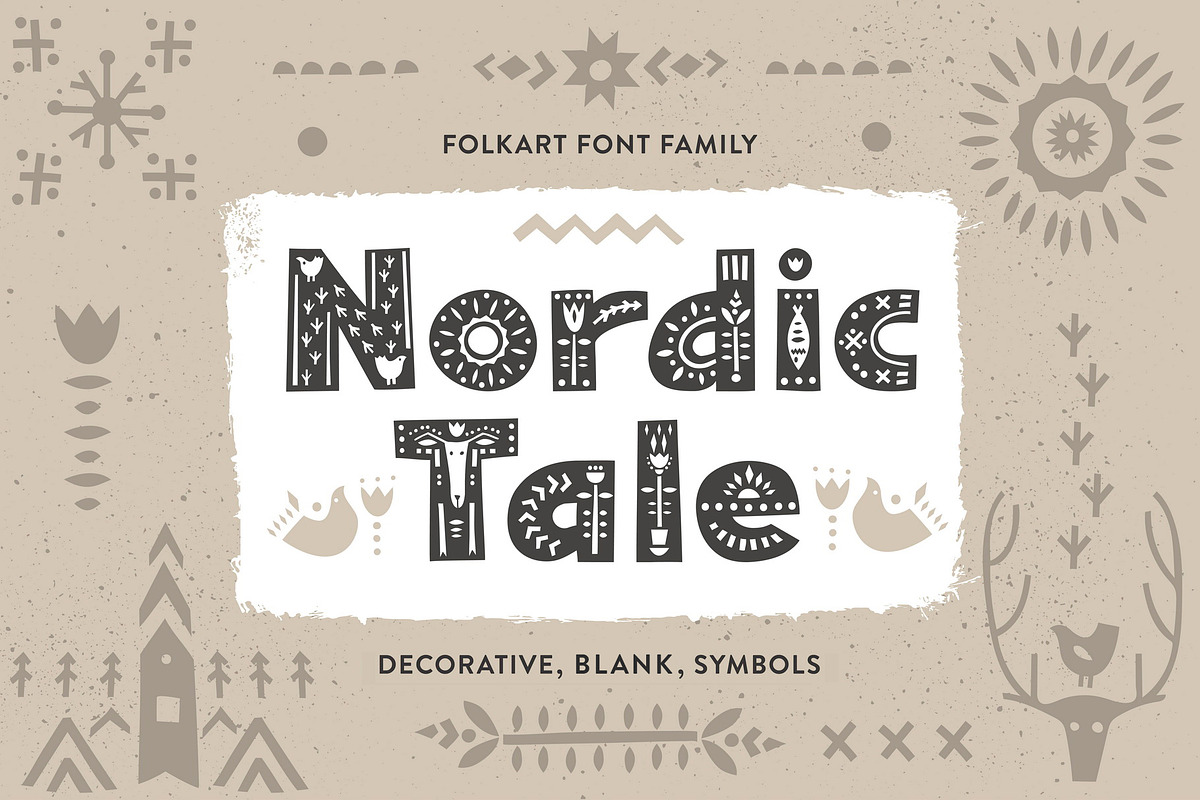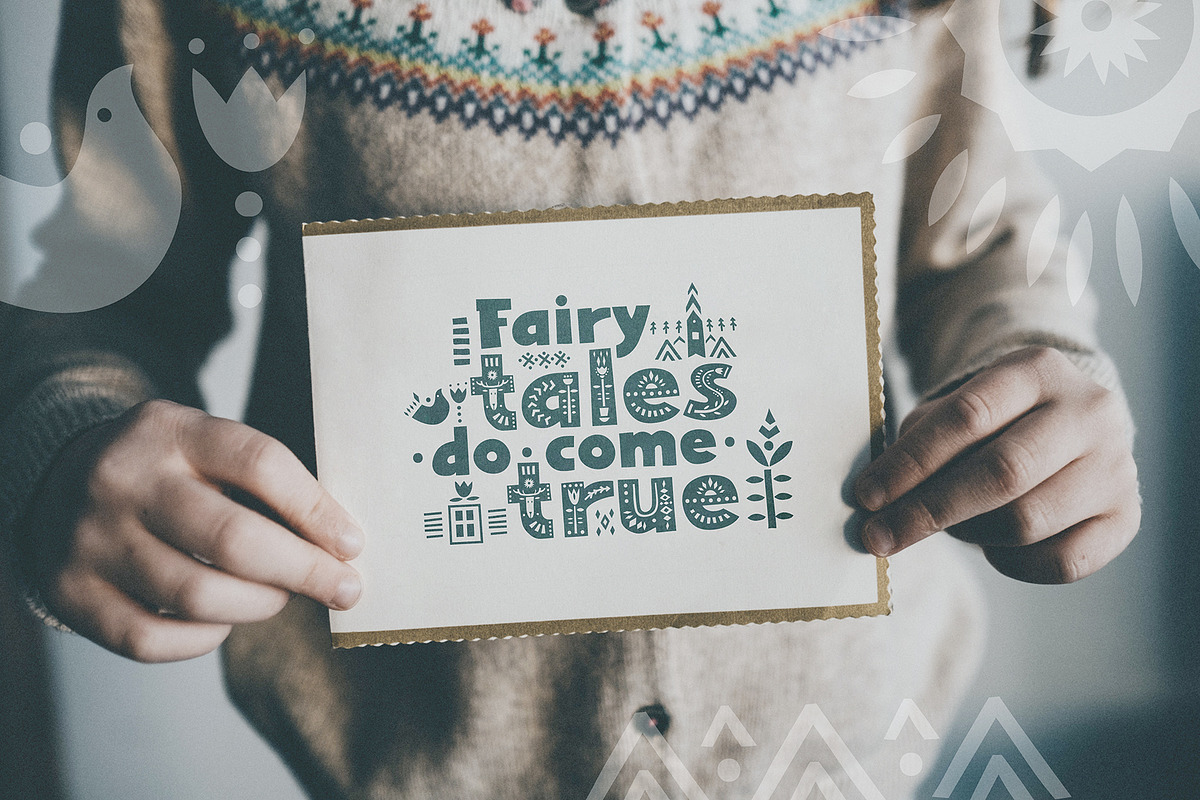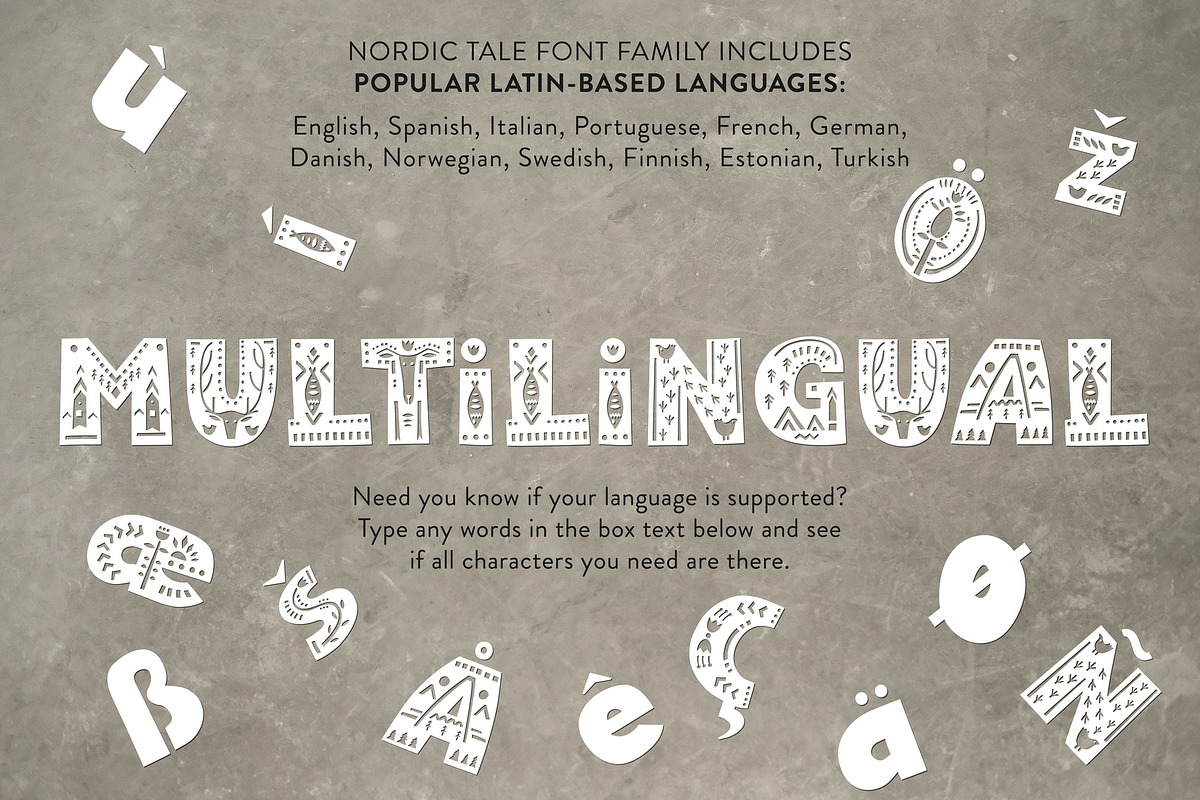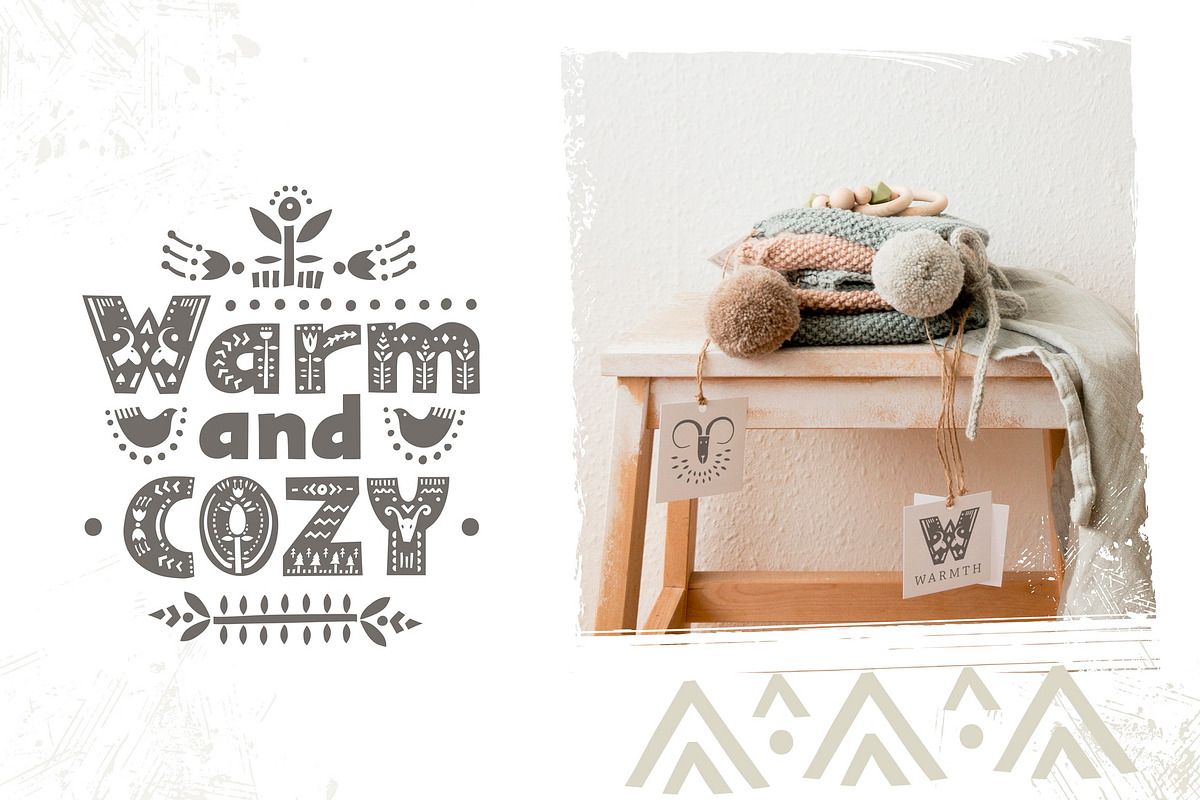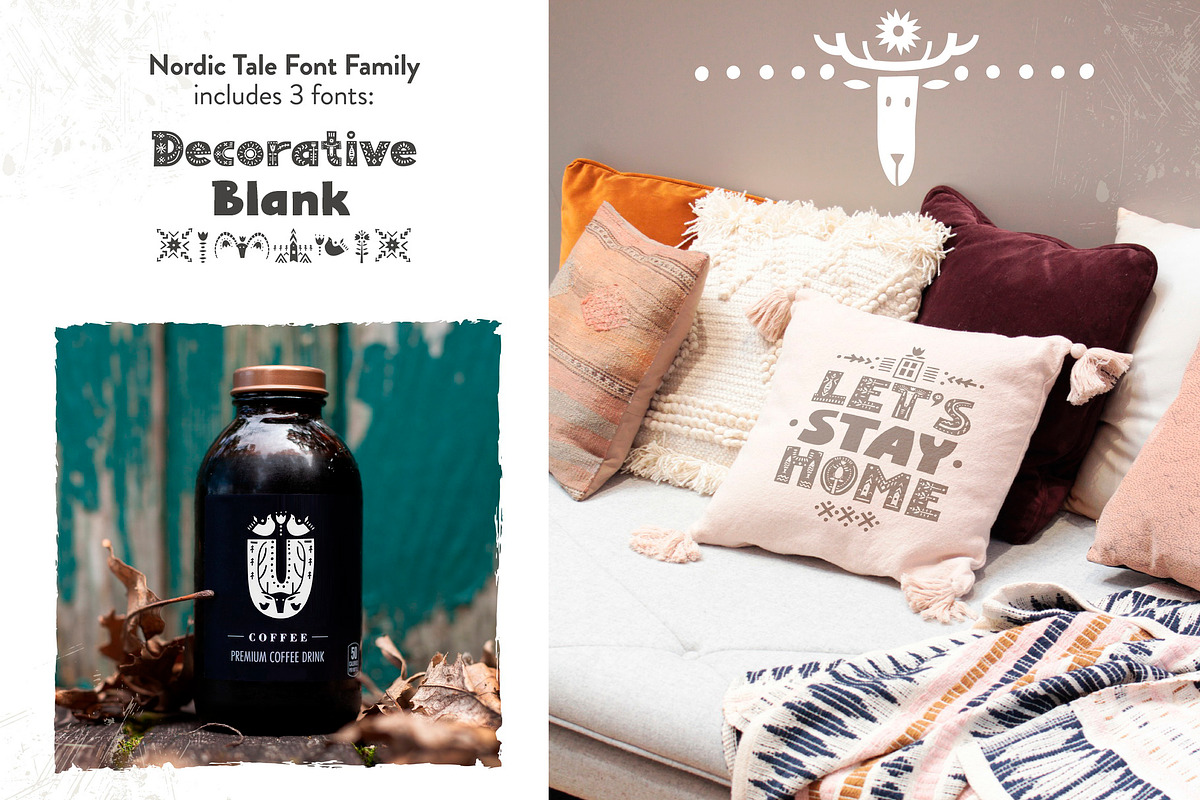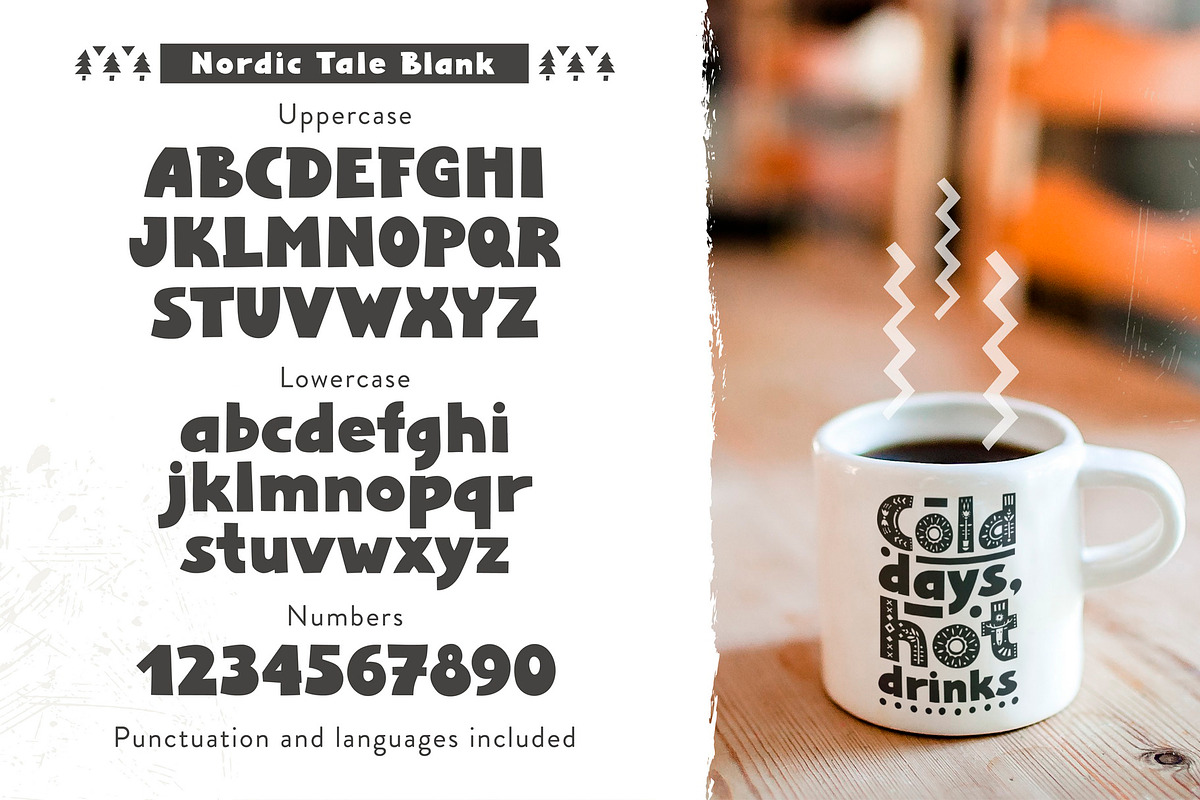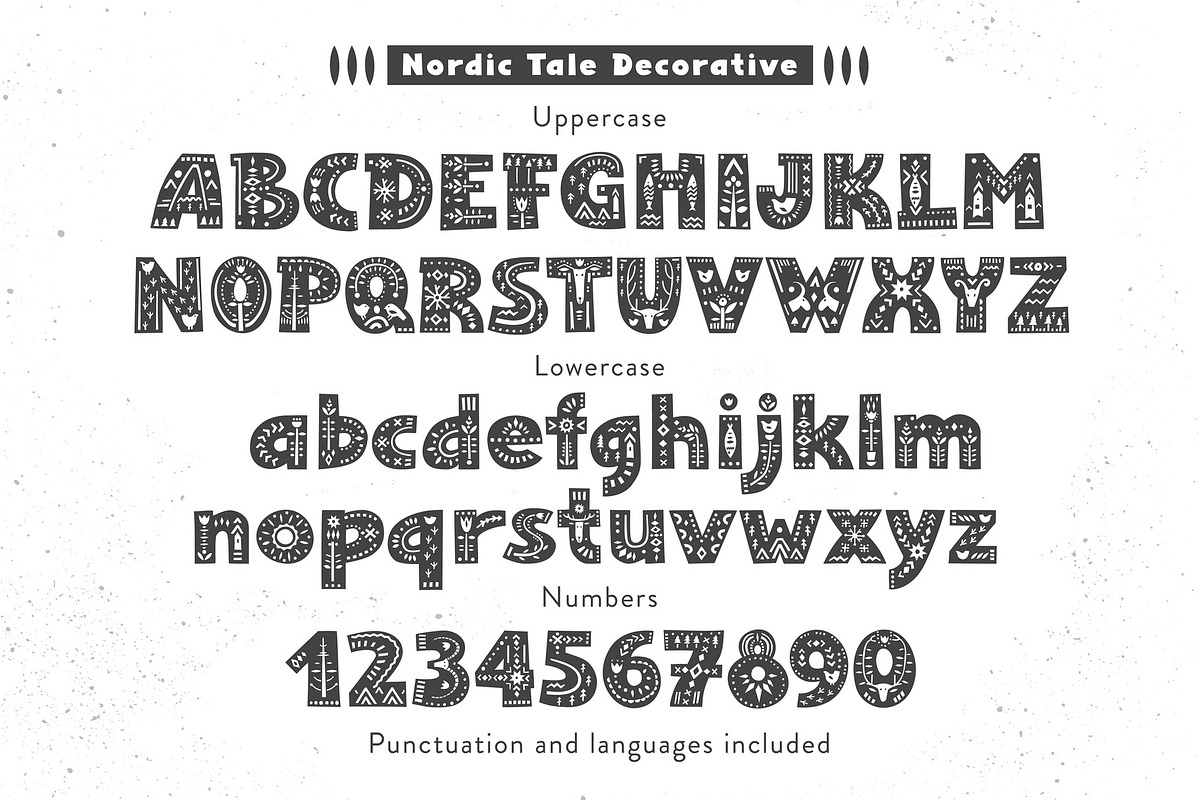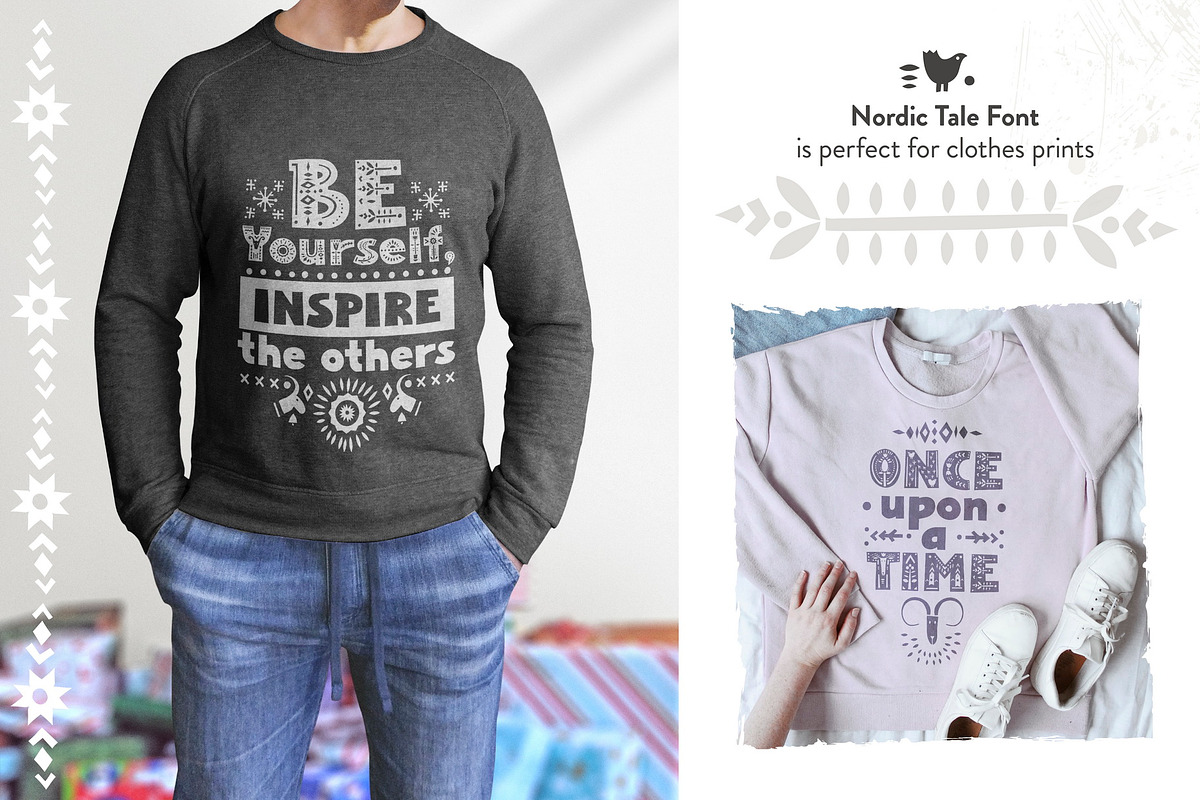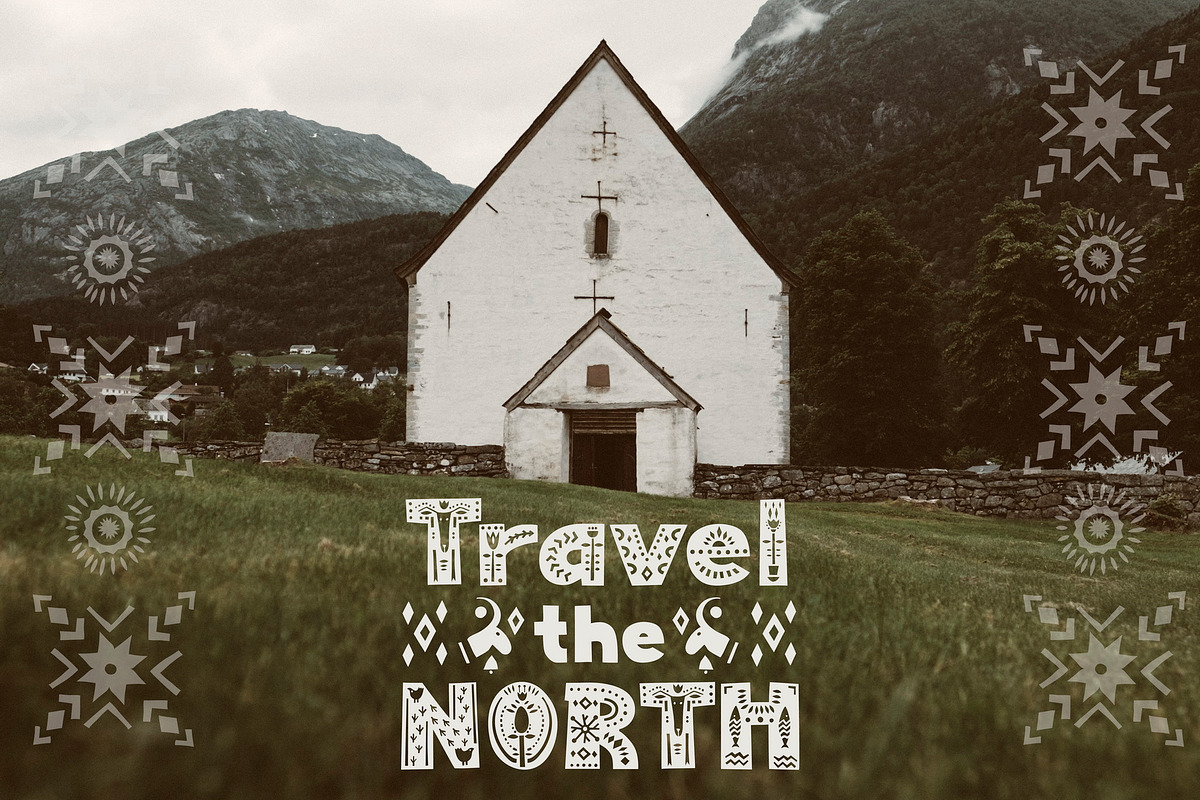
Nordic Tale - Folkart Font Family
I would like to introduce my new product - Nordic Tale - Folkart Font Family. The font is created with love for the Scandinavian aesthetics, it is decorated with Nordic patterns. Every letter of the folkart font is a separate cultural story. The typeface includes Decorative, Blank and Symbol versions. The font is easy to use in various design programs or without any program.
Nordic Tale font is suitable for lettering posters and cards, tourist brochures, photo overlays, book covers and article titles. The font works great both for printing clothes and interior decoration. Also use individual letters and symbols to create logos and monograms.
- Nordic Tale Decorative
- Nordic Tale Blank
- Nordic Tale Symbol
The font has extensive language support, it includes English, French, German, Italian, Spanish, Portuguese, Danish, Norwegian, Swedish, Finnish, Estonian, Turkish. Need to know if your language is supported? Type any words in the text box below and see if all characters you need are there.